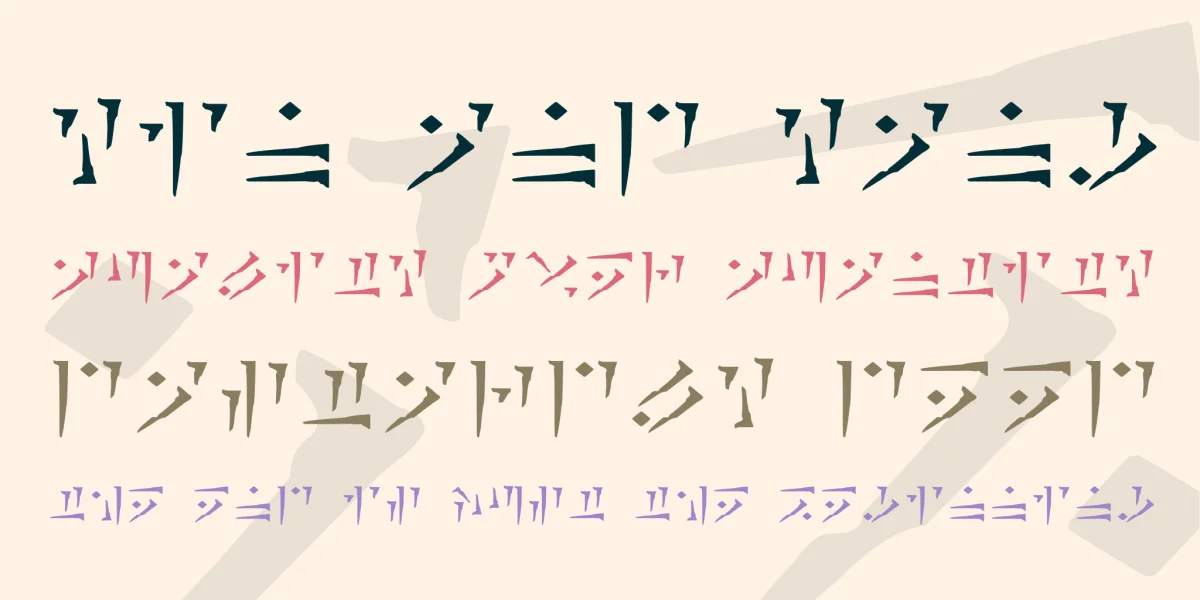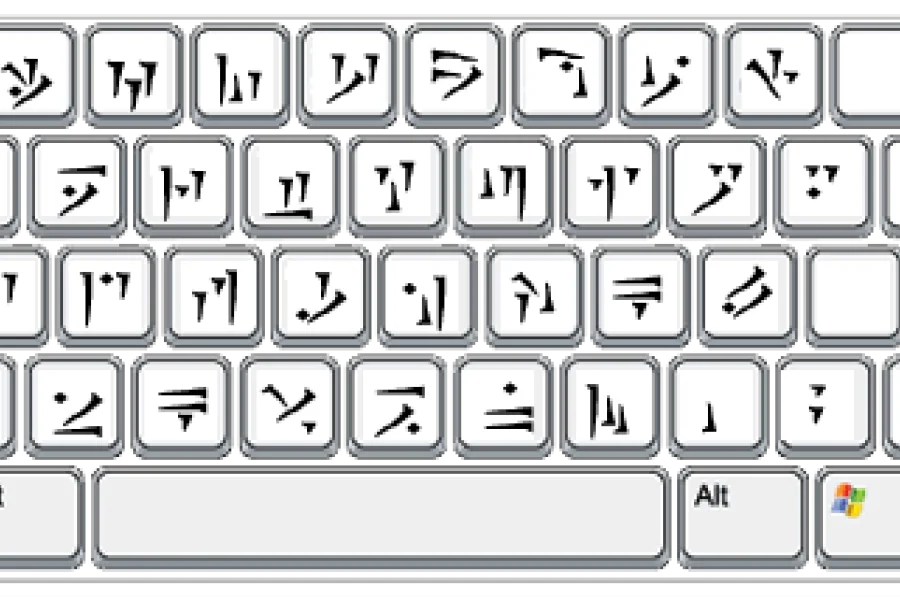
In The Elder Scrolls V: Skyrim, a new language has been released; the language of the Dragons. Sometimes referred to as Dragonish, Dragon Tongue, Draconian or simply Dovah, this language has become rare in Tamriel since the dragon's apparent extinction. The main character of Skyrim, the Dragonborn (or Dovahkiin) will be able to learn parts of the language, using them to cast powerful spells known as dragon shouts. Interestingly, speakers of dragon language can calm Dragonlings with it.